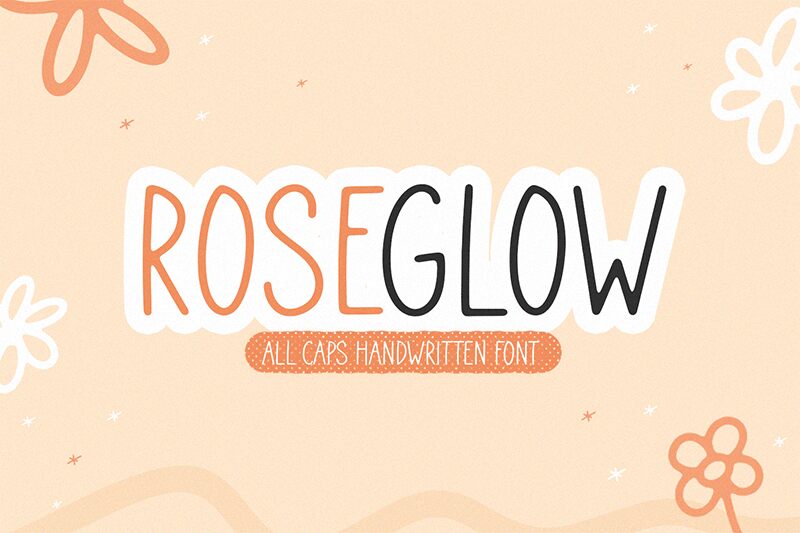
Roseglow
Roseglow, a handwritten sans serif, was created by Timur and it features an uneven and slightly irregular stylistic effect with bold outlines in each character.
The font is light, condensed and can be used for casual, fun or even romantic projects. Its quirky and bubbly appearance brings a sense of lightness and can be used in quotes/lyrics, branding and packaging design projects, social media posts and headlines for websites (particularly blogs with an aesthetic theme, fashion and beauty brands), business cards and stationery items.